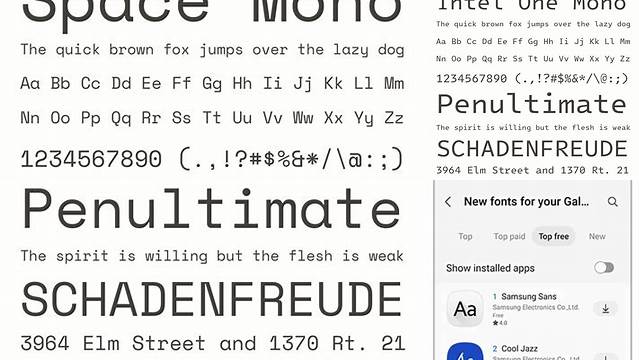
Download Mono Fonts For Android Samsung
Hey guys! Are you on the hunt for some cool, mono fonts to spice up your Android Samsung device? Well, you've come to the right place! Mono fonts, also known as monospaced fonts, are super popular because each character takes up the same amount of horizontal space. This makes them incredibly readable, especially for code, tables, and any text where alignment matters. Think of it like a perfectly organized spreadsheet or a beautifully formatted piece of code – it's all about that clean, consistent look! In this article, we'll dive deep into everything you need to know about downloading and using mono fonts on your Android Samsung phone. We will cover how to find these fonts, get them onto your device, and even how to apply them to different apps. So, whether you're a developer, a student, or just someone who appreciates a sleek font, this guide is for you. Let's get started on this font-tastic journey! Before we jump in, remember to always download files from trusted sources to avoid any potential security risks. Your device's safety is always the top priority, am I right?
Understanding Mono Fonts
So, what exactly makes mono fonts so special? As mentioned earlier, the key characteristic is that every character, from the letter 'i' to the letter 'W' and even the spaces, occupies the same amount of horizontal space. This is different from proportional fonts, where characters have varying widths. For example, the letter 'i' is typically narrower than the letter 'W'. This equal spacing in mono fonts creates a visually distinct and often preferred look in several scenarios. One major advantage of mono fonts is their readability, especially in technical contexts. Coders and programmers adore them because they make it easy to align code elements, such as variables, operators, and comments. This improves code readability, reduces errors, and makes debugging a breeze. Furthermore, mono fonts are great for creating tables, charts, and any information presented in a tabular format. The uniform character widths ensure that columns align perfectly, enhancing the clarity of the data. There are also a number of different types of mono fonts to pick from. Some, like Courier New, are classics with a traditional typewriter feel. Others, like Roboto Mono or Fira Code, are modern designs that blend readability with a contemporary style. The best choice depends on your personal preferences and the specific application. When selecting a mono font, think about what you'll primarily be using it for. If it's for coding, a font with clear letter distinctions and good legibility is essential. If it's for general text, you might prefer a font with a more stylish design. The variety available ensures you can find the perfect match for your needs. Overall, mono fonts bring a blend of practicality and aesthetics. They are functional tools for those who work with code or data, and a design choice that gives any text a polished, professional appearance.